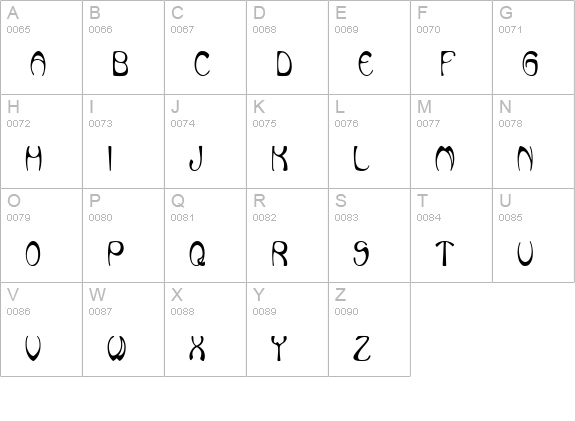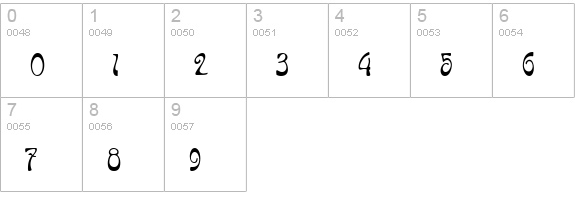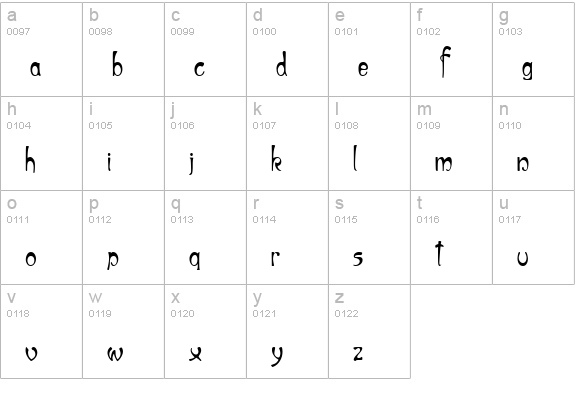
Art Nouveau-Cafe Font Details
Art Nouveau-Cafe font captures the essence of the Art Nouveau movement with its elegant and flowing design. The delicate curves and intricate details of this font evoke a sense of sophistication and beauty, making it perfect for projects that require a touch of vintage charm. This font is not only visually stunning but also versatile, making it suitable for a wide range of design projects such as invitations, posters, branding, and more. Its unique style will surely make your creations stand out and leave a lasting impression on viewers. Best of all, Art Nouveau-Cafe font is available for free download at FontsMarket.com. Whether you're a designer looking to add a touch of Art Nouveau flair to your work or simply appreciate the beauty of this timeless style, this font is a must-have addition to your collection. Download it today and unleash your creativity with the beauty of Art Nouveau-Cafe font.